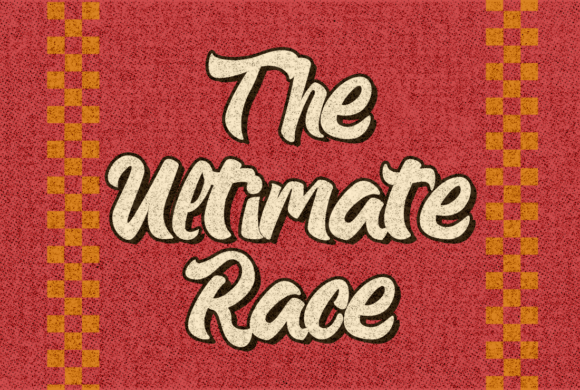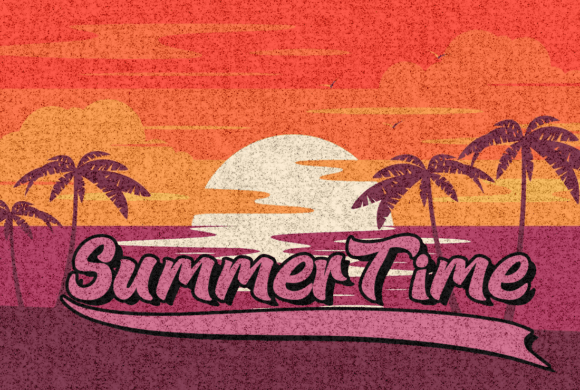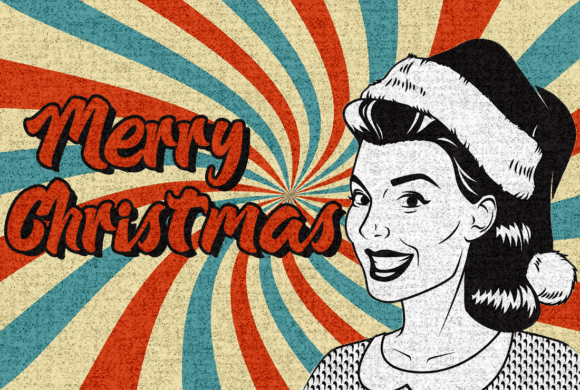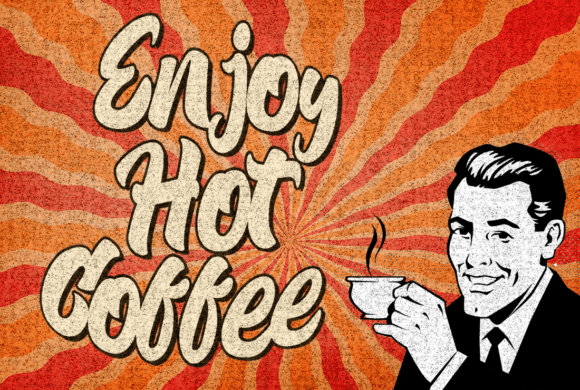
Introducing Finest Ink: The Ultimate Vintage Retro Font for Designers and Crafters
Are you a designer or crafter looking for a font that embodies the spirit of retro typography and lettering from the 70s and 80s? Look no further than Finest Ink, a bold and stylish vintage retro font that’s perfect for a wide range of design projects. In this article, we’ll take a closer look at Finest Ink, its features, and how you can use it to elevate your designs.
What is Finest Ink?
Finest Ink is a carefully crafted vintage retro font that draws inspiration from the iconic typography and lettering of the 1970s and 1980s. This font combines the nostalgic charm of retro design with a bold typography style, making it perfect for creating eye-catching and memorable designs. Whether you’re working on a vintage-inspired project, a retro-themed branding campaign, or simply looking for a unique font to add some personality to your designs, Finest Ink is the perfect choice.
Key Features of Finest Ink
So, what makes Finest Ink so special? Here are some of its key features:
- Vintage Retro Style: Finest Ink is inspired by the iconic typography and lettering of the 70s and 80s, making it perfect for vintage and retro designs.
- Bold Typography: This font features a bold typography style that’s perfect for creating eye-catching headlines, titles, and logos.
- Highly Versatile: Finest Ink can be used for a wide range of design projects, including badges, logos, t-shirts, posters, branding, packaging, signage, book covers, and more.
Use Cases for Finest Ink
Finest Ink is an incredibly versatile font that can be used for a wide range of design projects. Here are some use cases to get you started:
- Vintage and Retro Designs: Finest Ink is perfect for creating vintage-inspired designs, such as retro-themed posters, flyers, and brochures.
- Branding and Packaging: Use Finest Ink to create bold and eye-catching branding and packaging designs that stand out on store shelves.
- T-Shirts and Apparel: Finest Ink is a great font for creating custom t-shirts, hoodies, and other apparel with a retro twist.
- Signage and Displays: Use Finest Ink to create eye-catching signage and displays that grab attention and make a statement.
- Book Covers and Magazines: Finest Ink is perfect for creating bold and eye-catching book covers and magazine titles.
Tips for Using Finest Ink
Here are some tips for getting the most out of Finest Ink:
- Experiment with Different Sizes: Finest Ink looks great in a variety of sizes, from small captions to large headlines.
- Pair with Other Fonts: Try pairing Finest Ink with other fonts to create a unique and eye-catching typography combination.
- Use in Combination with Images: Finest Ink looks great when used in combination with images, especially vintage or retro-style photos.
- Don’t Be Afraid to Get Creative: Finest Ink is a versatile font that can be used in a wide range of design projects, so don’t be afraid to get creative and try new things.
Finest Ink is a unique and versatile vintage retro font that’s perfect for designers and crafters looking to add a touch of nostalgia to their designs. With its bold typography style and highly versatile design, Finest Ink is perfect for a wide range of design projects, from vintage and retro designs to branding and packaging. Whether you’re a seasoned designer or just starting out, Finest Ink is a great addition to your font library.